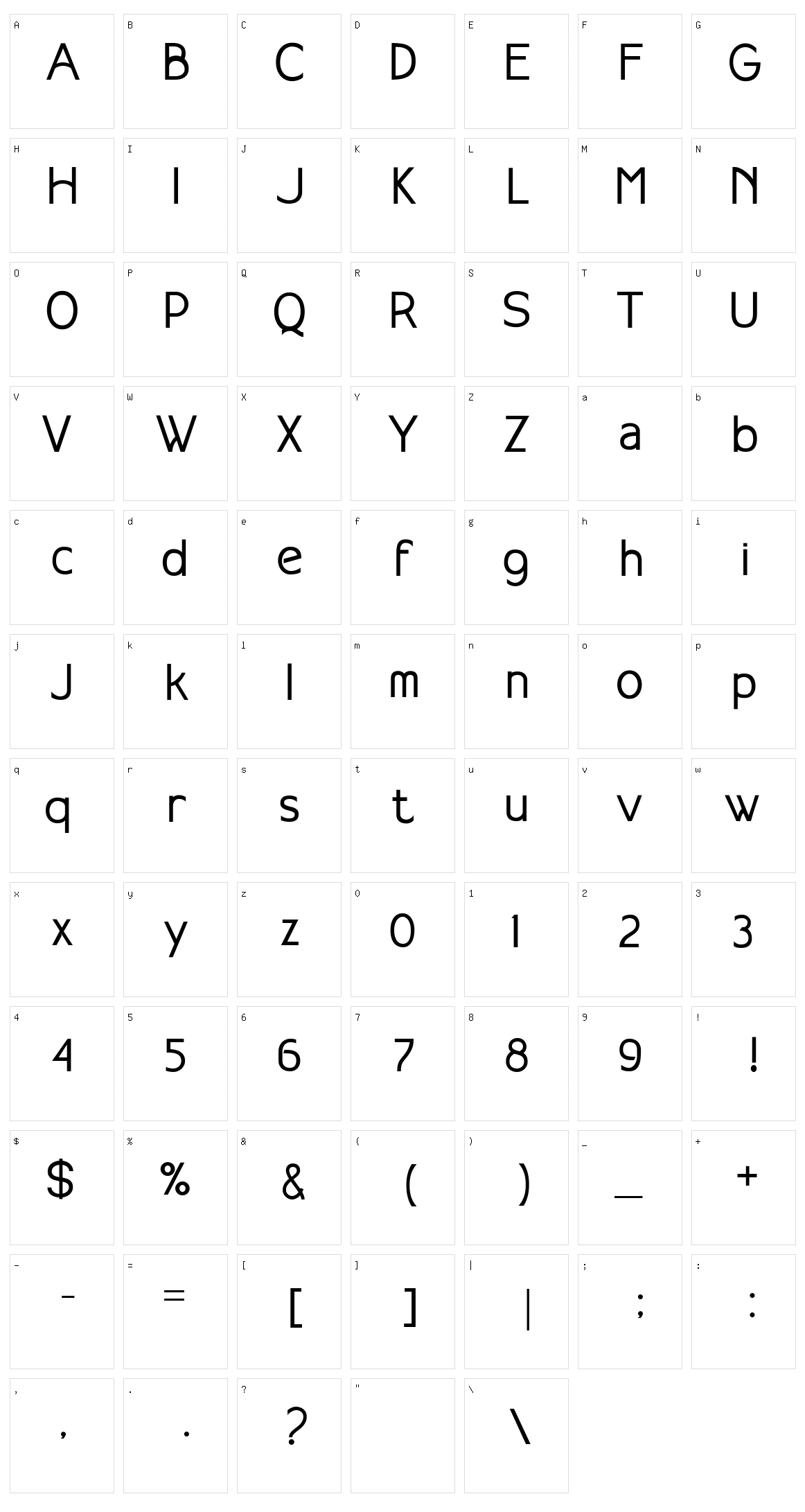
The free font Nirwana is carefully designed by Muh. Taufiq Hidayatullah, showcasing a thoughtful balance of creativity and usability and falls under the Sans serif font style. When you download the ZIP file, it contains only 28.01 KB of font files, making it lightweight and quick to download. Please review the license details below to understand permitted usage and distribution rights. If license information is not available, we recommend using this font for personal projects only or contacting the author directly for commercial usage permissions.